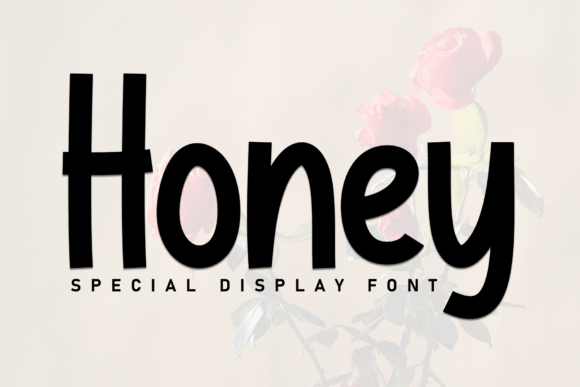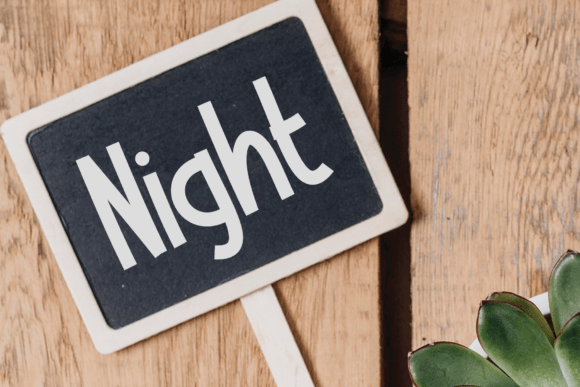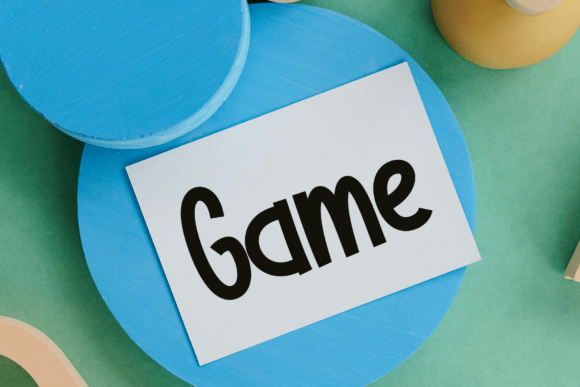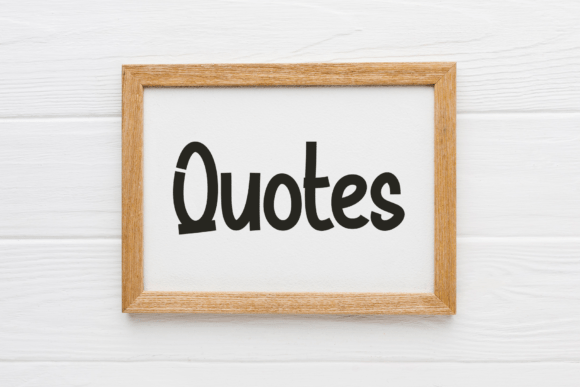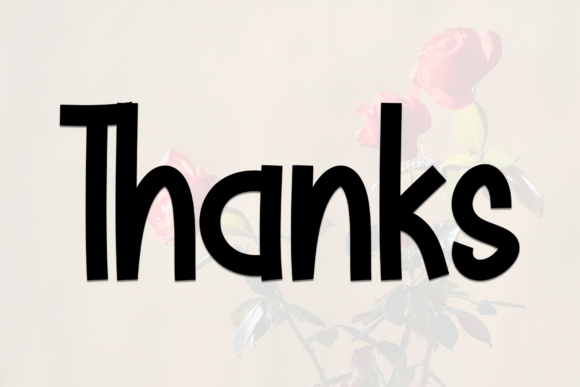
Sticky Situation: The Sweet Solution for Designers
Remember that moment when you’re brainstorming ideas for a new project, and you just can’t seem to find the right tone? The words are stuck in your head, but the style just isn’t quite right. That’s when you need a font that’s as smooth as honey – something that adds a touch of warmth and personality to your design.
Enter Honey Font, the perfect companion for any creative project. This charming display font is designed to add a friendly, approachable vibe to your branding, headlines, packaging, and digital content. With its clean lines, balanced letterforms, and subtle rounded edges, Honey Font is the ultimate solution for designers looking to add a touch of modern handwritten typography to their work.
Honey Font Key Features
- Unique Characteristics: Honey Font features a unique blend of modern and vintage elements, making it perfect for designs that require a touch of elegance and sophistication.
Honey Font Review
I recently had the chance to work with the Honey Font, and I’m here to share my honest thoughts on this popular font. ✨ The first thing that caught my eye was its elegant and modern design. It’s perfect for creating a sleek and sophisticated look in any project.
The Honey Font comes with a wide range of styles, from bold to light, and it supports multiple languages. ✨ The font is also highly customizable, making it easy to adjust the size, color, and spacing to fit your needs.
However, there are a few limitations to consider. ⚠️ The font may not be as versatile as some other options, and it may not be suitable for projects that require a more playful or casual tone. Additionally, some users have reported issues with font rendering on certain devices.
- Modern and elegant design
- Wide range of styles
- Support for multiple languages
Conclusion
Overall, I was impressed with the Honey Font’s clean and sophisticated design. While it may have some limitations, it’s a great choice for projects that require a professional and modern look. I would definitely recommend it to designers and developers looking for a high-quality font option.
Tips for Getting the Most Out of the Honey Font
Use the Honey Font to add a touch of elegance and sophistication to your designs. It pairs well with bold and playful fonts, making it perfect for creating visually appealing contrast.
Experiment with different font sizes and colors to create a unique look that suits your brand or design style.
The Honey Font is perfect for:
Food and beverage branding
Home decor and furniture design
Any design project that requires a touch of sweetness and elegance
Alternatives to “Honey Font” for Designers
Great Vibes is a beautiful, elegant script font that is perfect for adding a touch of sophistication to your designs. It features a flowing, handwritten style that works well for invitations, wedding stationery, and other high-end branding materials.
Compared to Honey Font, Great Vibes has a more refined and polished look, making it suitable for more formal projects. While Honey Font has a more playful and whimsical feel, Great Vibes is ideal for designs that require a touch of luxury and elegance.
Carolyna Pro is a modern, elegant script font that is perfect for adding a touch of sophistication to your designs. It features a flowing, handwritten style with a more contemporary feel, making it suitable for a wide range of projects, from branding and packaging to editorial and advertising.
Compared to Honey Font, Carolyna Pro has a more modern and edgy look, making it ideal for projects that require a bold and eye-catching design. While Honey Font has a more classic and timeless feel, Carolyna Pro is perfect for designers who want to create a more modern and trendy look.